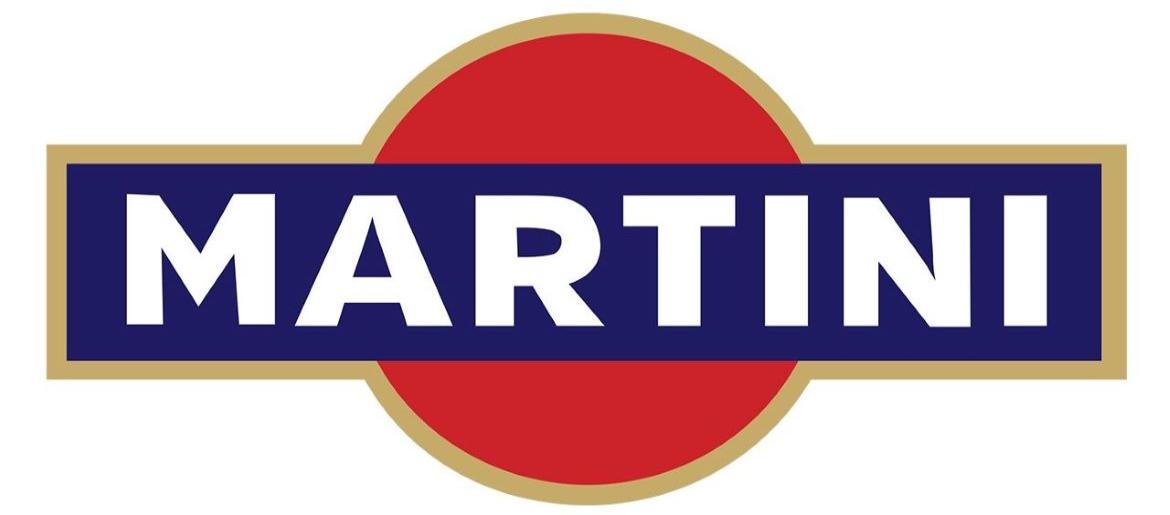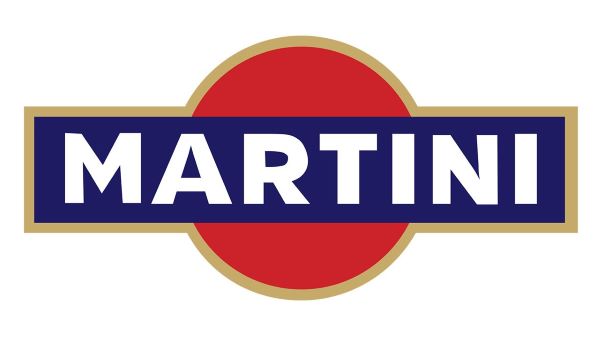
Martini Font
What Font is Martini?
The Martini Font used in the logo is closely matched by the typeface Maven Pro, a free sans-serif design characterised by smooth, wide letterforms and a striking “small caps” feel — ideal for the bold, upscale look of the brand.
About Martini
Martini is a celebrated Italian vermouth and sparkling wine brand known for its elegant heritage, stylish iconography, and long history in social and cocktail culture. The typography of its updated logo reflects both sophistication and approachability: confident, refined, yet modern.